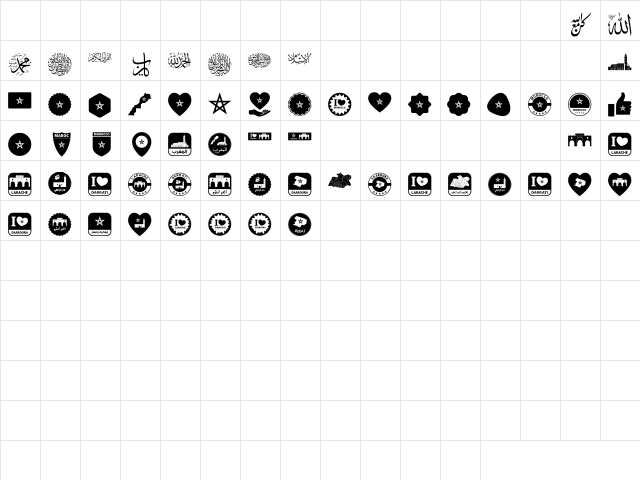
font larache color Regular
| Foundry | elharrak fonts |
| Designer | elharrak fonts |
Design Context for font larache color Typeface
font larache color is a composed and adaptable typeface that performs quietly and consistently across a wide range of design contexts.